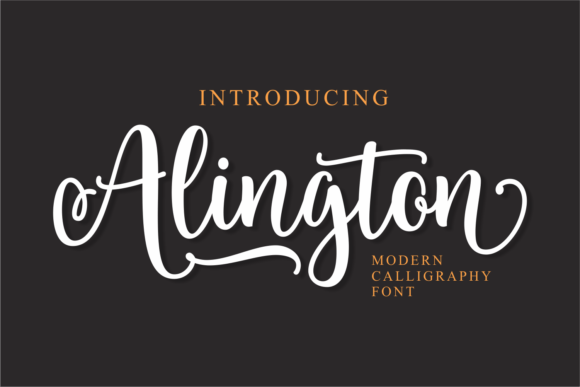
The Sweet Charm of Alington Font: A Designer’s Delight
Have you ever been in the middle of a design project, and suddenly, you’re stuck on finding the perfect font? I recall a recent experience where I was working on a wedding invitation design, and my client specifically asked for a calligraphy font that would make the invitation look elegant and sophisticated. After scouring through numerous font libraries, I stumbled upon Alington Font, and it instantly became my go-to choice. In this article, I’ll share my love for Alington Font, its features, and how to make the most of it in your designs.
A Personal Review of Alington Font
What I Love About Alington Font ✨
- 💃 Modern and sweet calligraphy style that adds a touch of elegance to any design
- ✅ Characters that dance along the baseline, creating a beautiful flow
- 🎉 Perfect for invitations, greeting cards, branding materials, business cards, quotes, posters, and more
- 👍 Highly legible, even at smaller font sizes
While Alington Font is an excellent choice for many design projects, there are a few minor limitations to consider:
- 🤔 May not be the best choice for body text or lengthy paragraphs, as it’s designed for display purposes
- ⚠️ Limited availability of Cyrillic and non-English characters
- Experiment with OpenType features, such as ligatures and stylistic alternates, to add more flair to your text
The Story Behind Alington Font
Alington Font was designed with the intention of creating a beautiful, modern calligraphy font that would add a touch of elegance to any design. The designer aimed to craft a font that would be highly legible, yet visually appealing, with characters that dance along the baseline. The result is a stunning font that’s perfect for a wide range of design projects.
Q: What type of designs is Alington Font best suited for?
A: Alington Font is perfect for invitations, greeting cards, branding materials, business cards, quotes, posters, and more.
Q: Is Alington Font available in different languages?
A: Alington Font may have limited availability of Cyrillic and non-English characters. Please check with the font foundry for specific language support.